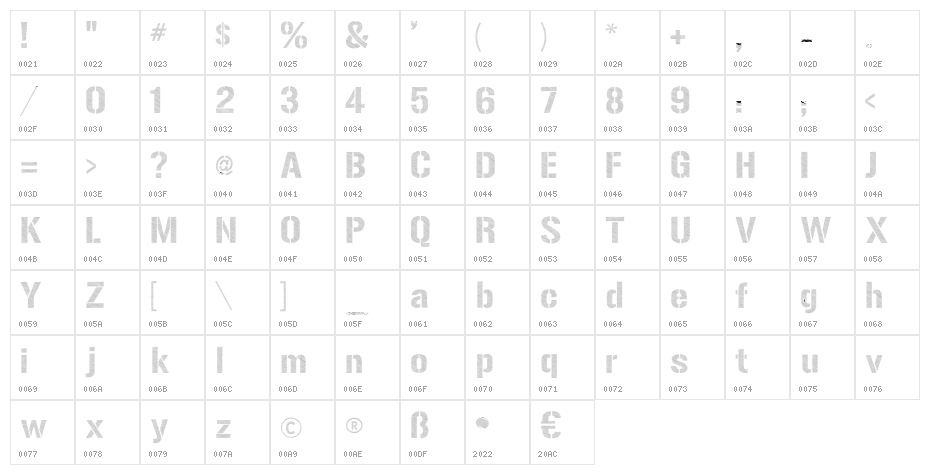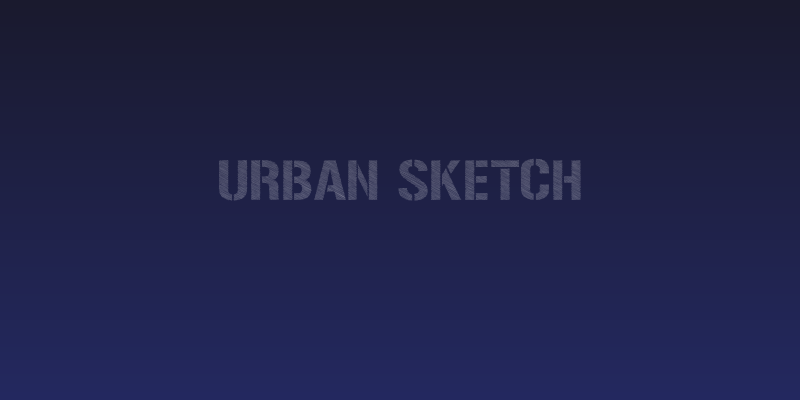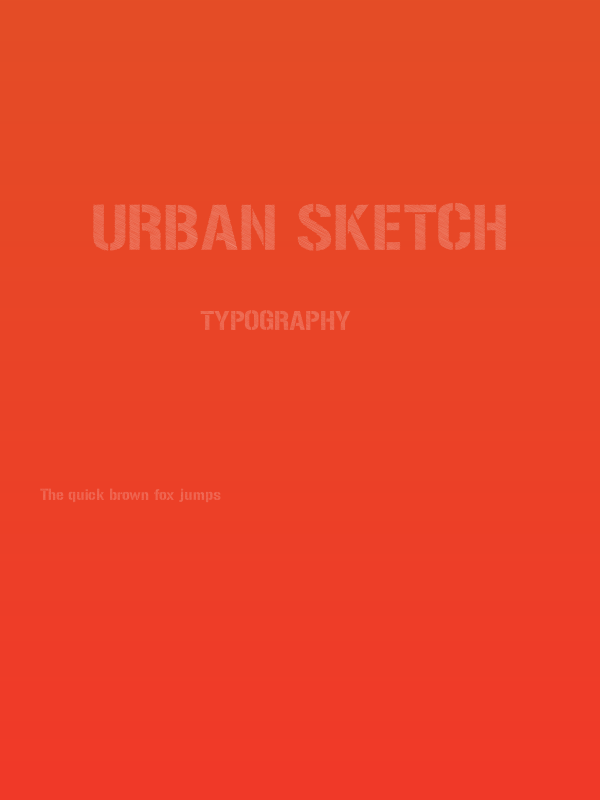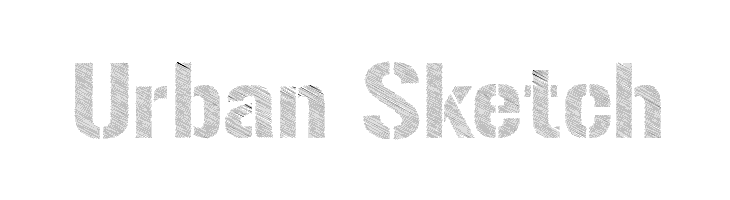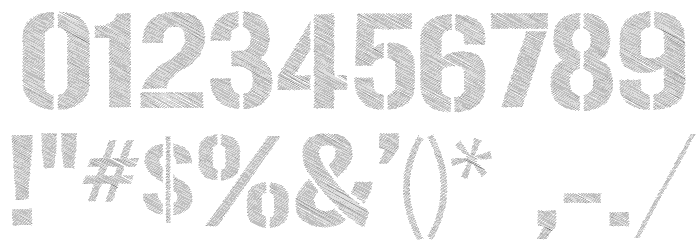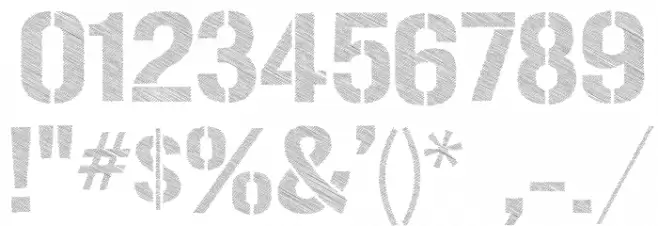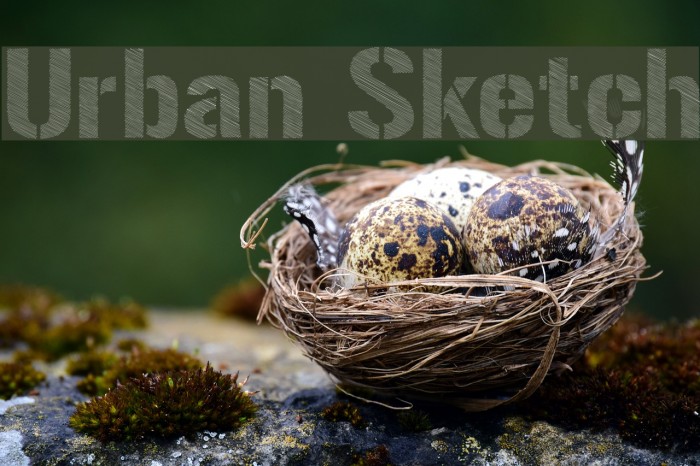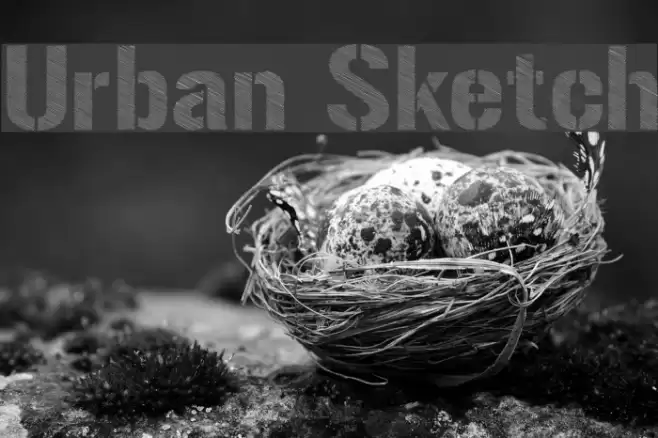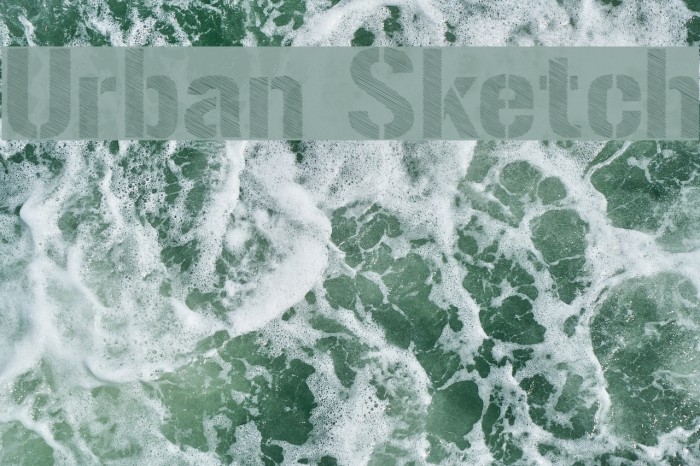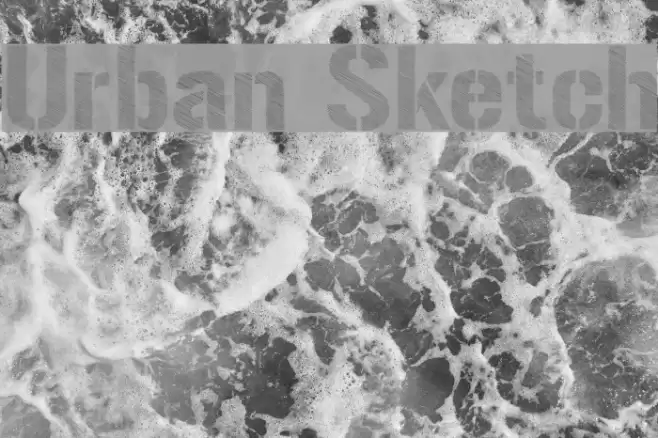
Urban Sketch Font
Urban Sketch Description
This font features a bold, urban-inspired design with a textured, sketch-like appearance. The uppercase and lowercase letters are crafted with a consistent thickness, giving them a sturdy and impactful look. The texture within each character adds a unique, hand-drawn feel, reminiscent of street art or chalkboard lettering. The numerals and special characters maintain this style, ensuring a cohesive look across all elements. The font's design is both modern and edgy, making it suitable for projects that require a strong visual impact.
| Overall Style | Modern, Urban |
| Proposed Projects | Ideal for street art-inspired designs, posters, album covers, and branding that requires a bold, artistic touch. |